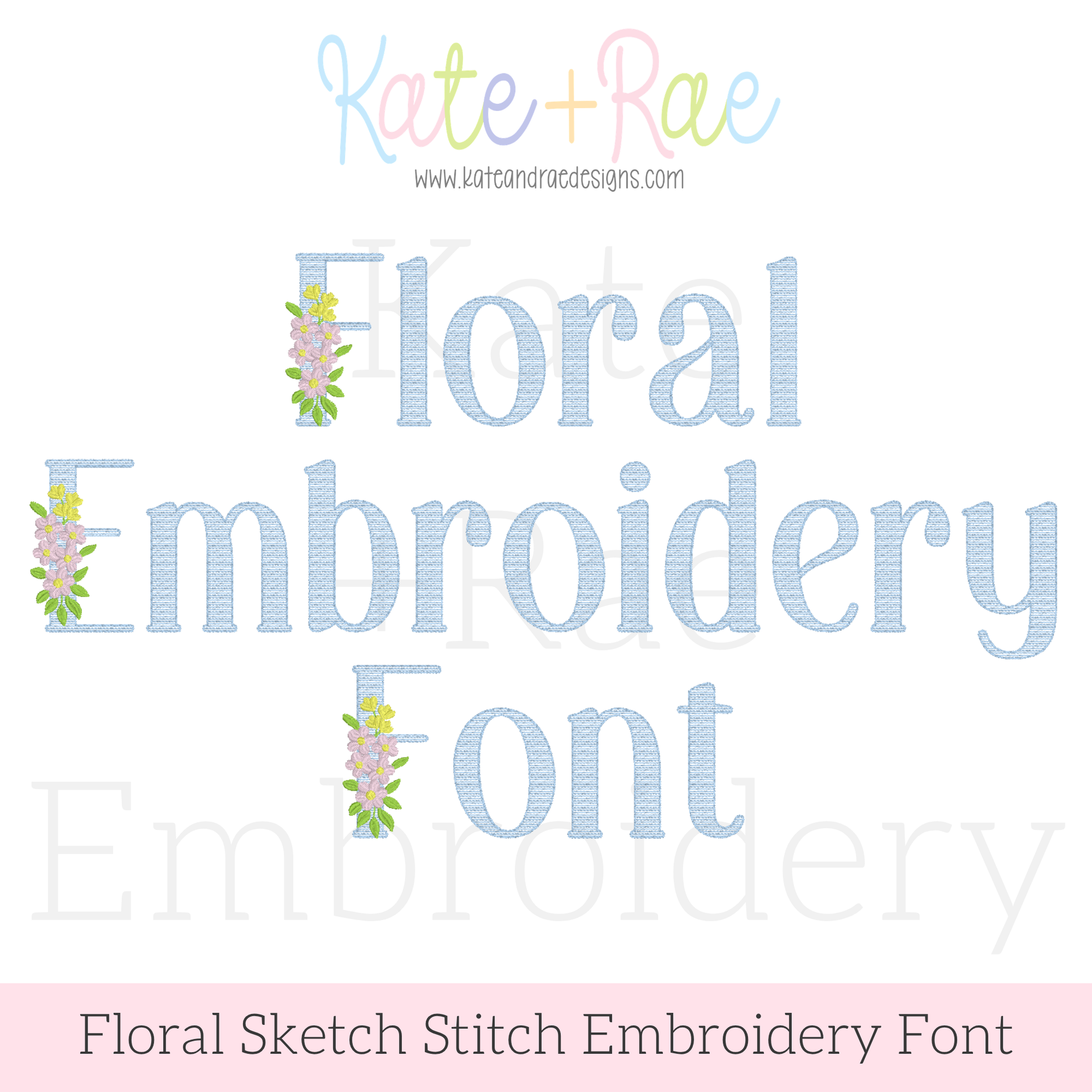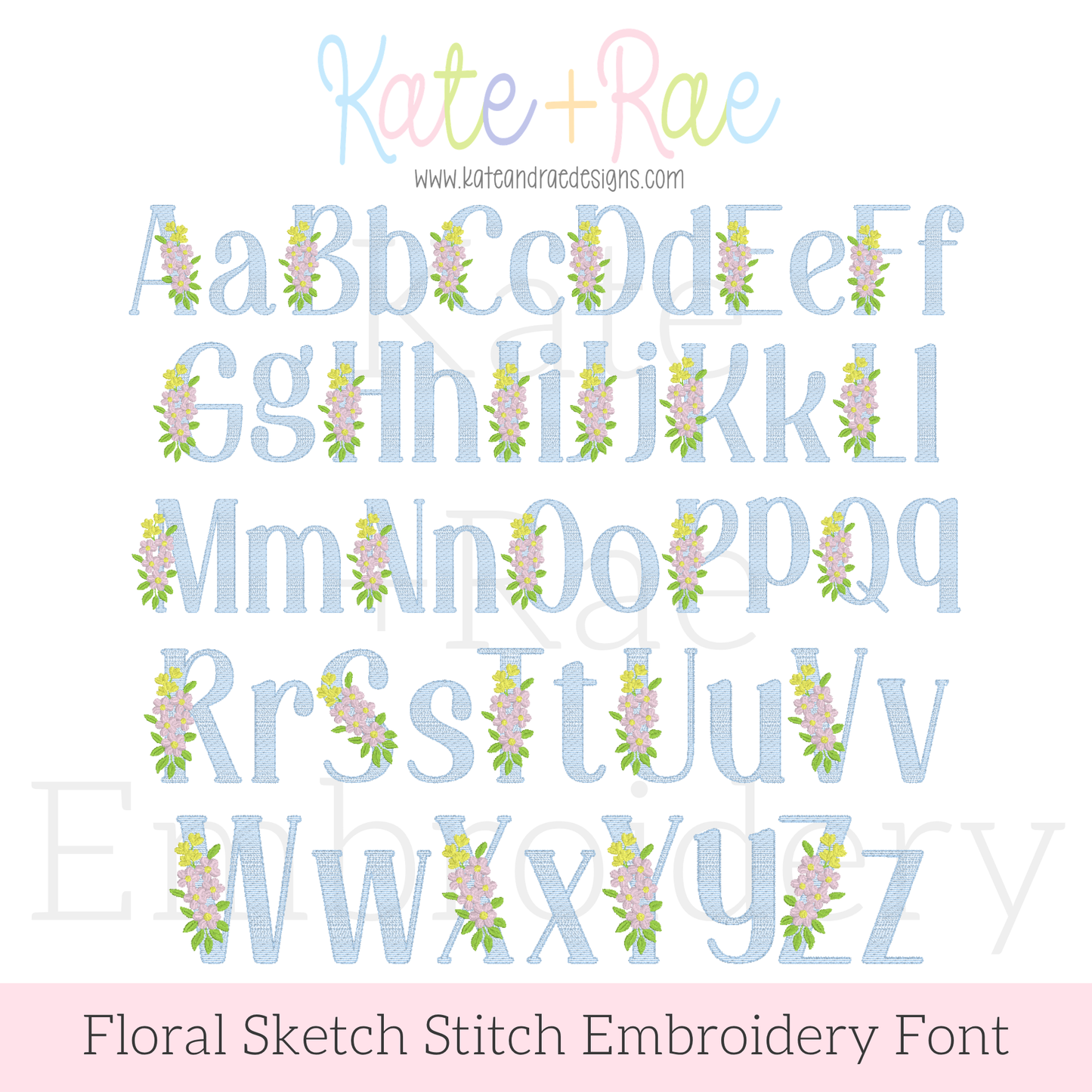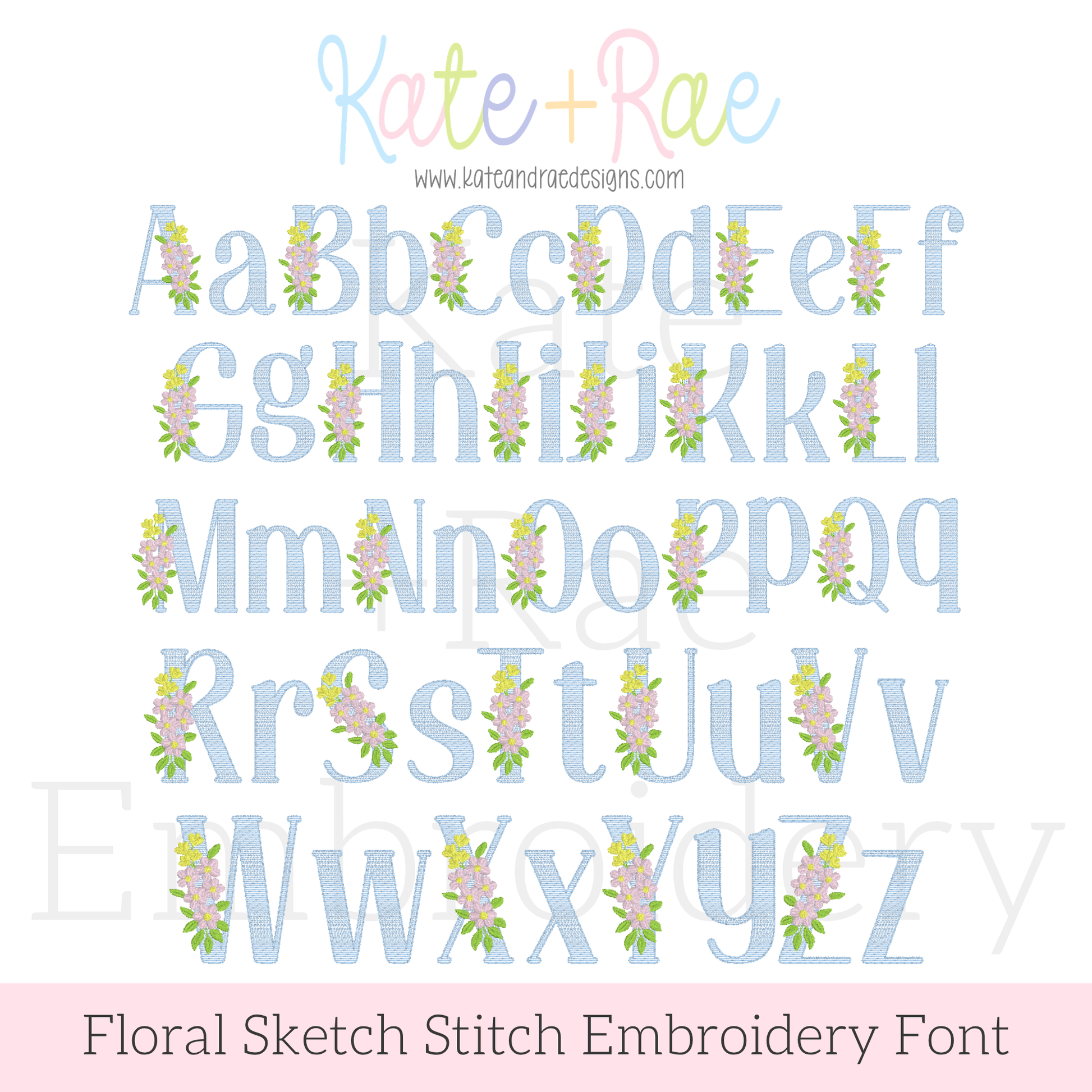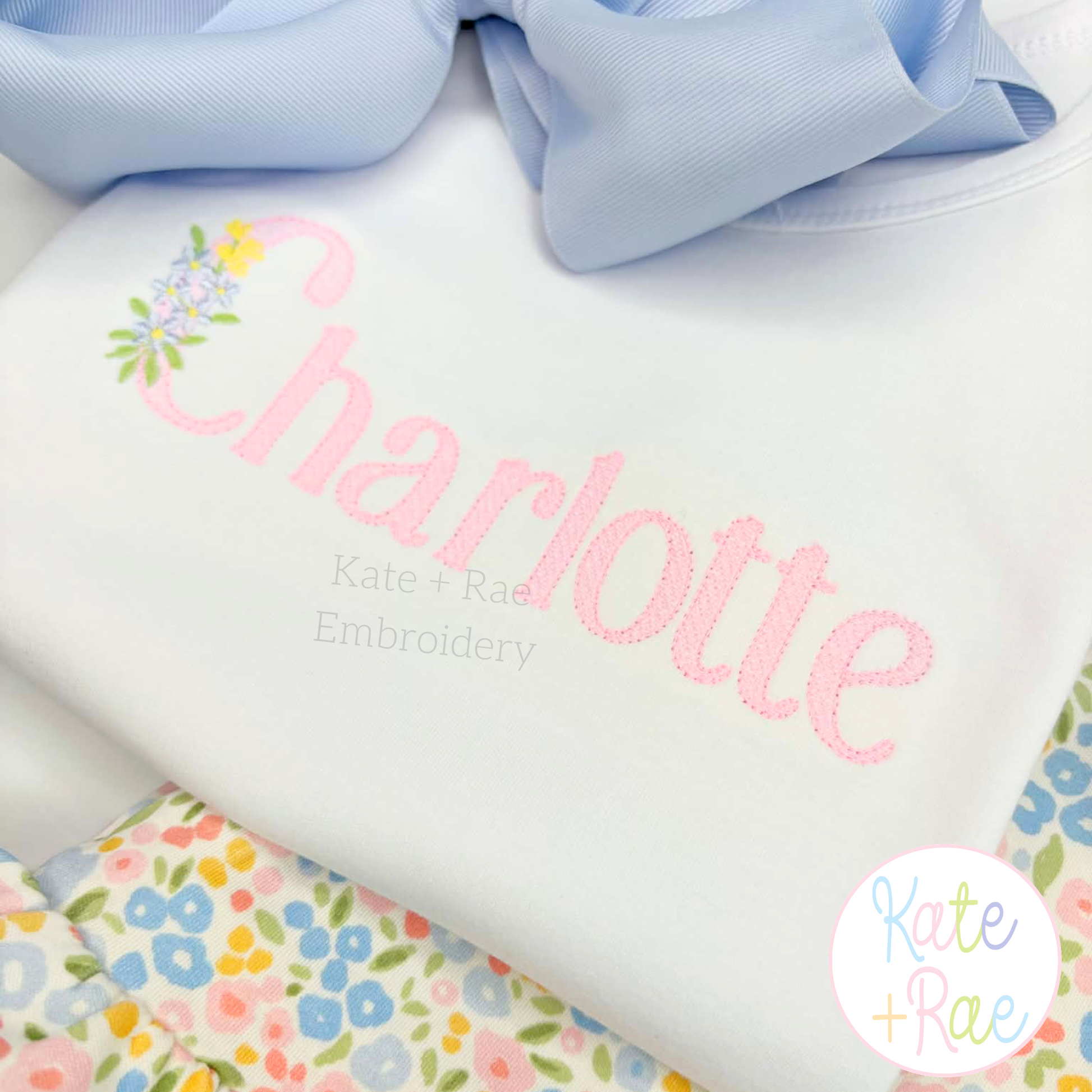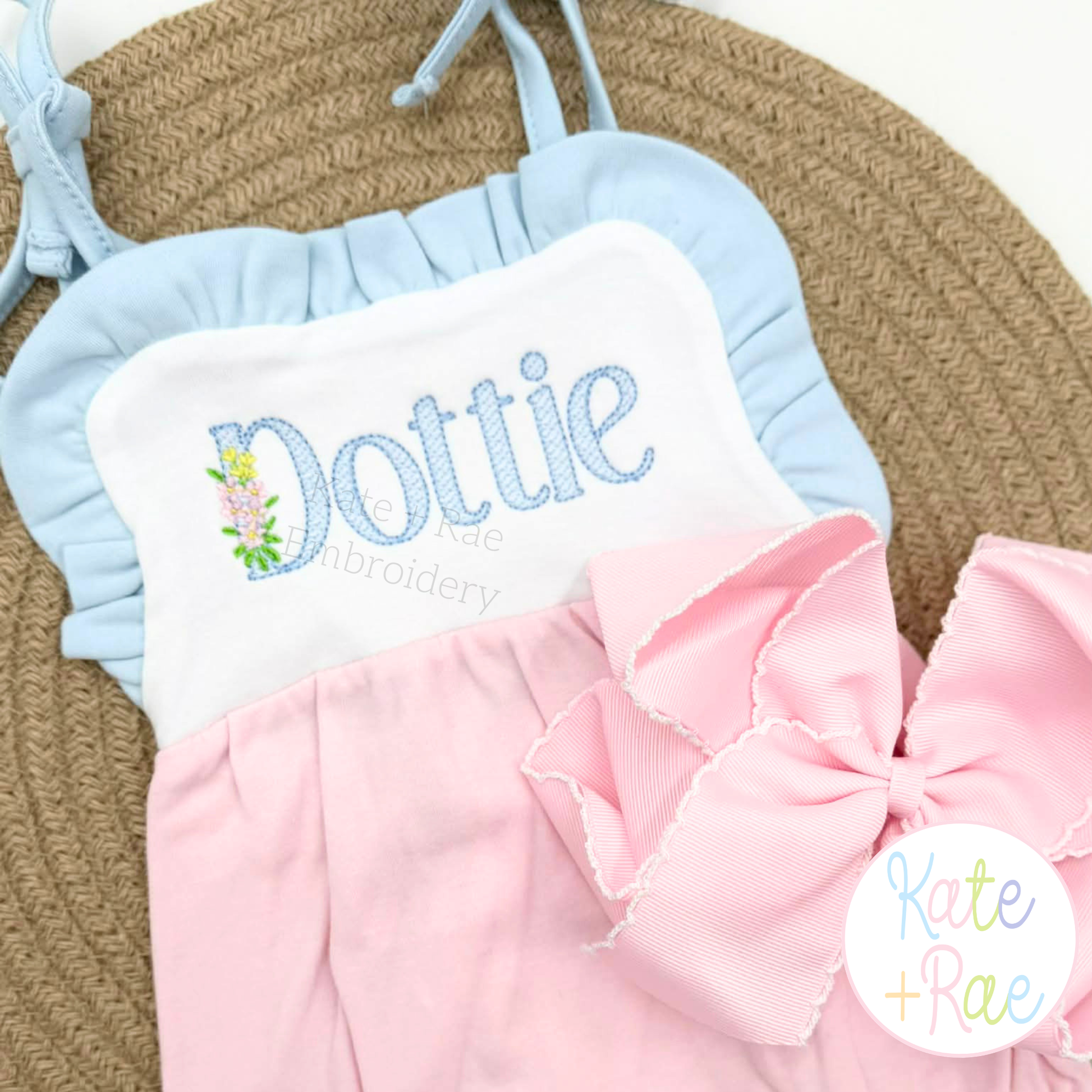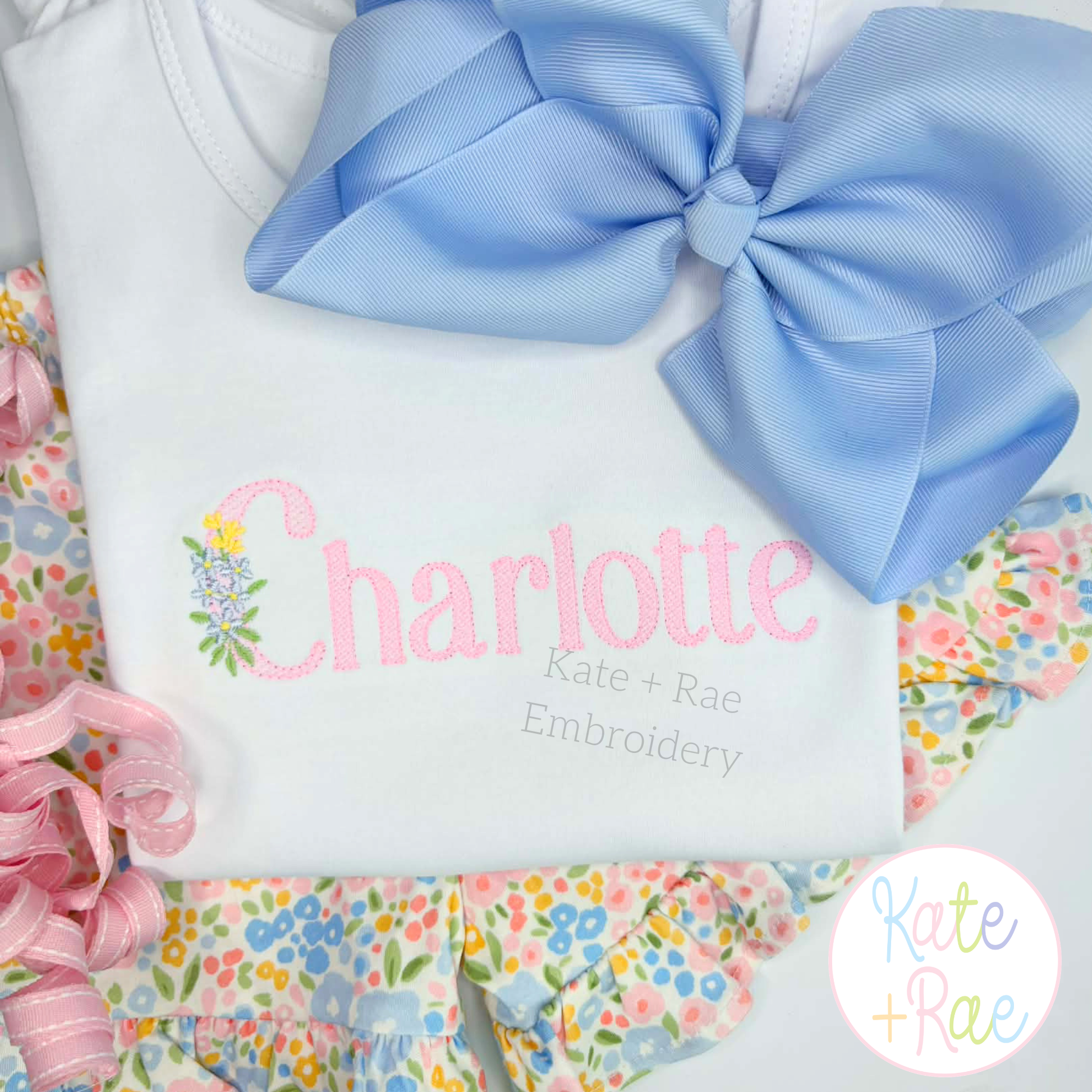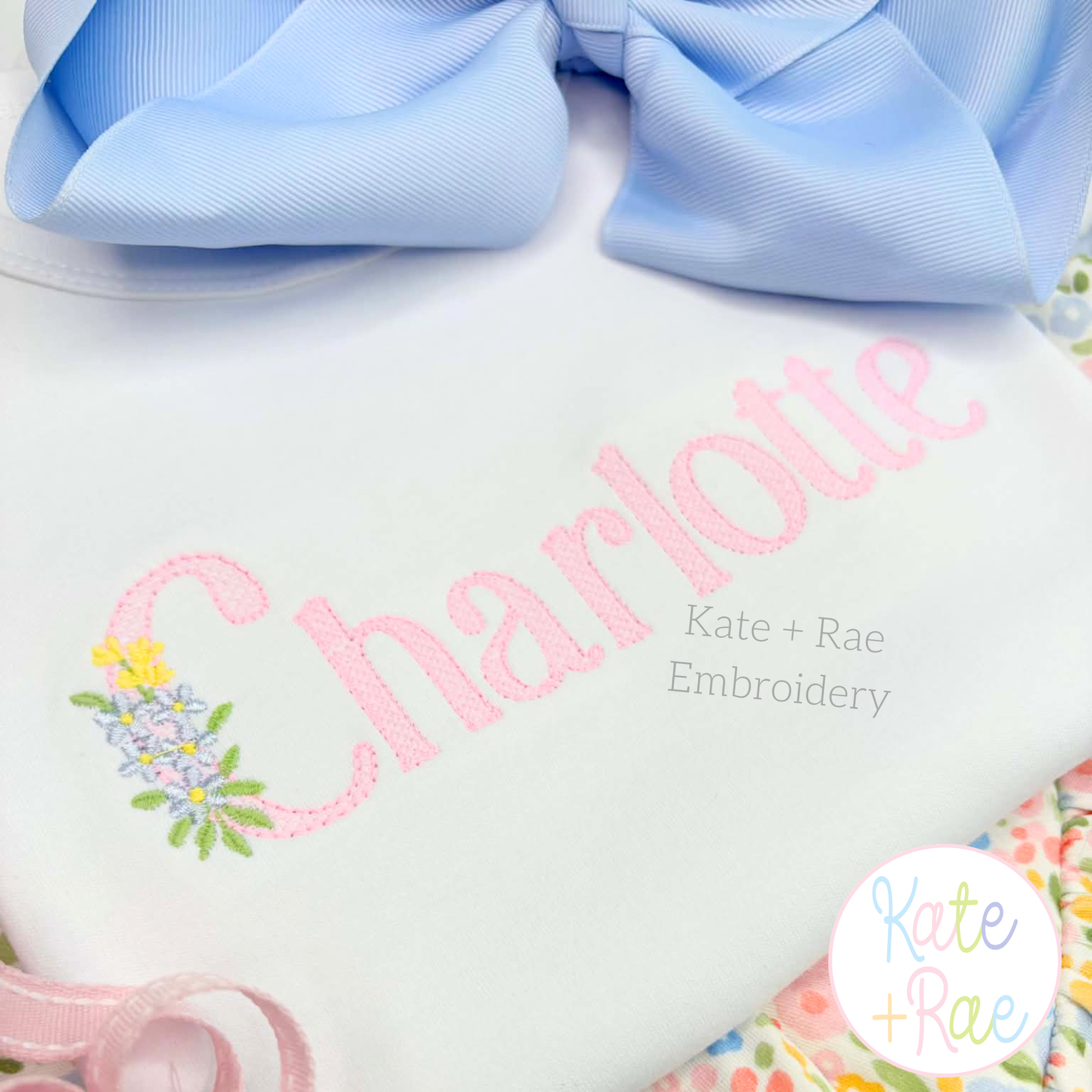
Floral Block Sketch Stitch Embroidery Font
Meet Floral Block, a blooming sketch stitch font! Personalize names, monograms, sweatshirts, and girls' outfits.